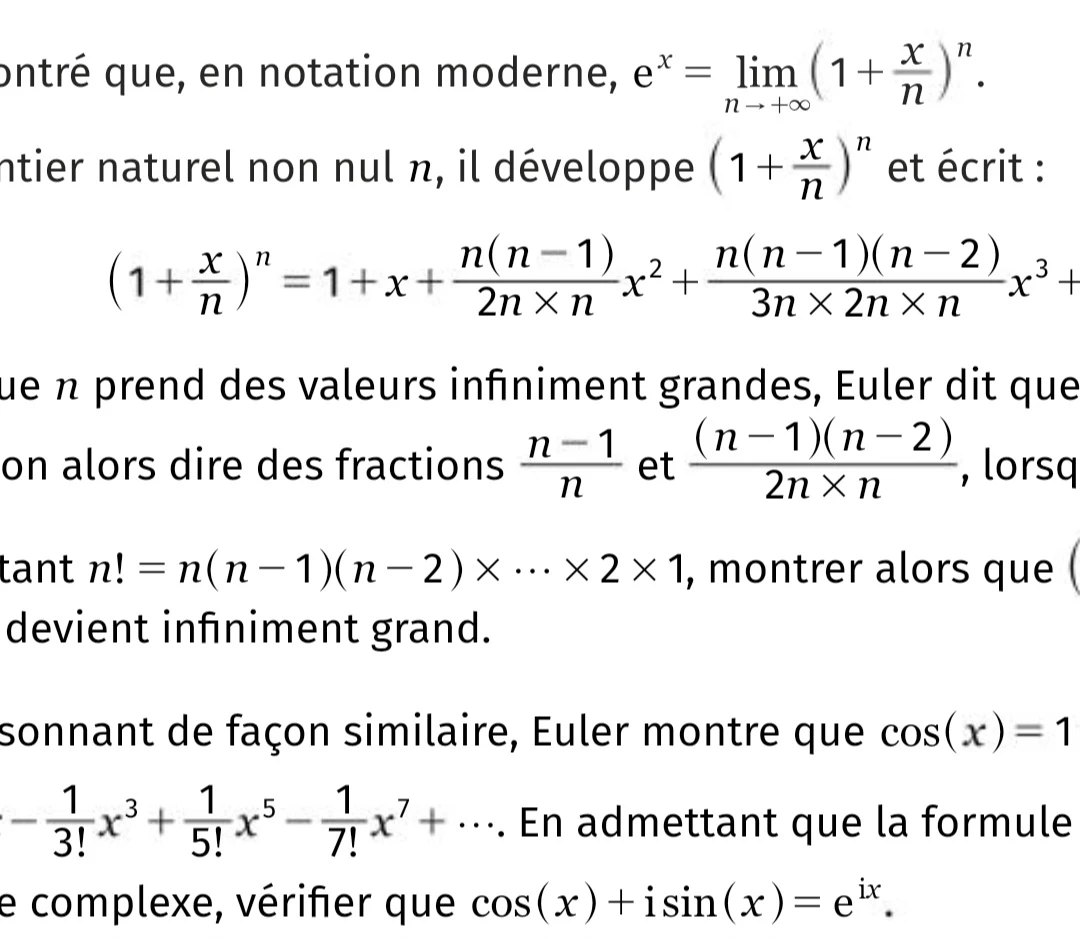
Math font that works with mathmagic
I'm new to InDesign and i try to use to write a scientific book that has a lot of equations and math formulas.
I see a book that was written with InDesign i asked the author about which plugins he used to wrote it , he responded saying that he used mathmagic.
I purchased mathmagic add it to InDesign but my equations look very ugly, i tried to change font but tha mathmagic keeps saying that he didn't find the postscript for the font .... i can only use tha mathmagic fonts and all if them produce a very ugly equations .
But in the book i mentioned earlier the equations look very good.
My question is which font they are using based on the screenshot i linked to my post?. and what is the best practice to use InDesign with mathmagic?.